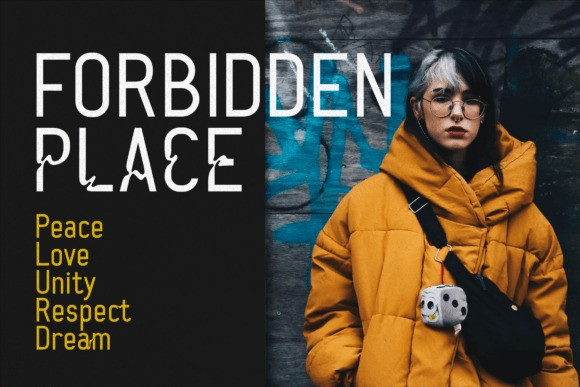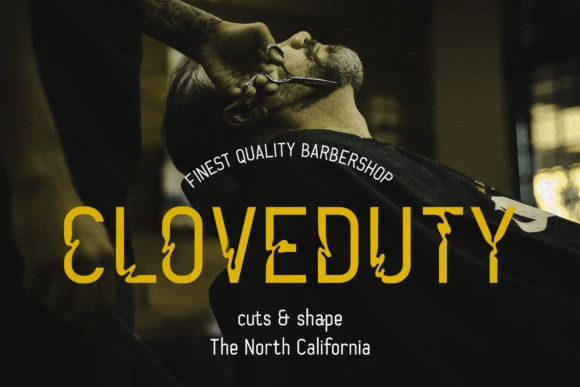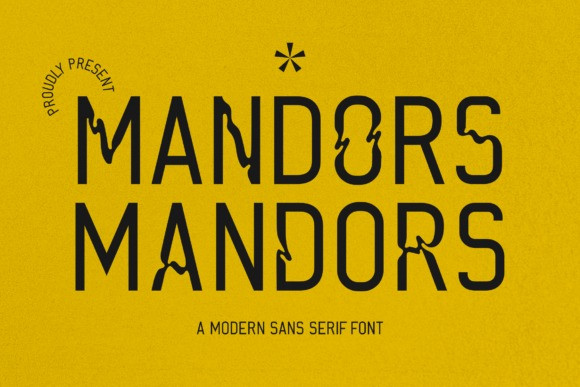
Mandors Font
Mandors Display Font is a modern and stylish sans serif typeface that has its own unique look. This font is perfect for elegant and luxurious logos, book titles, fashion branding, magazines, clothes, and so much more.